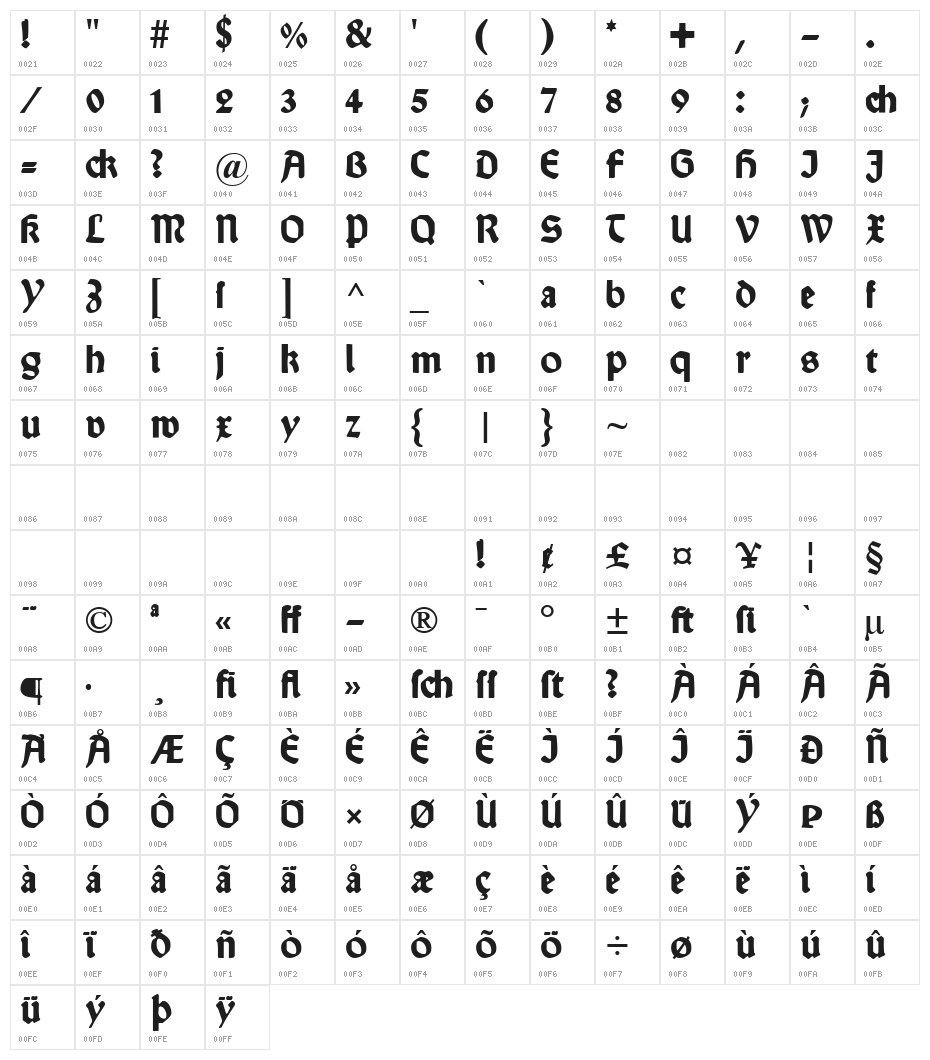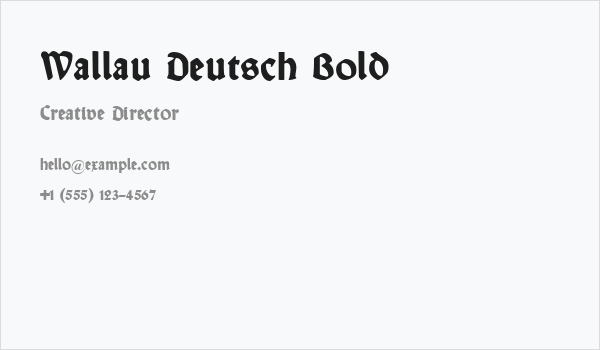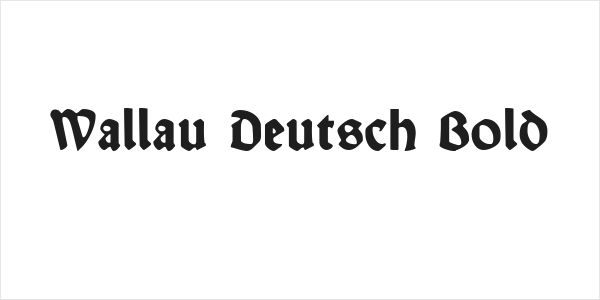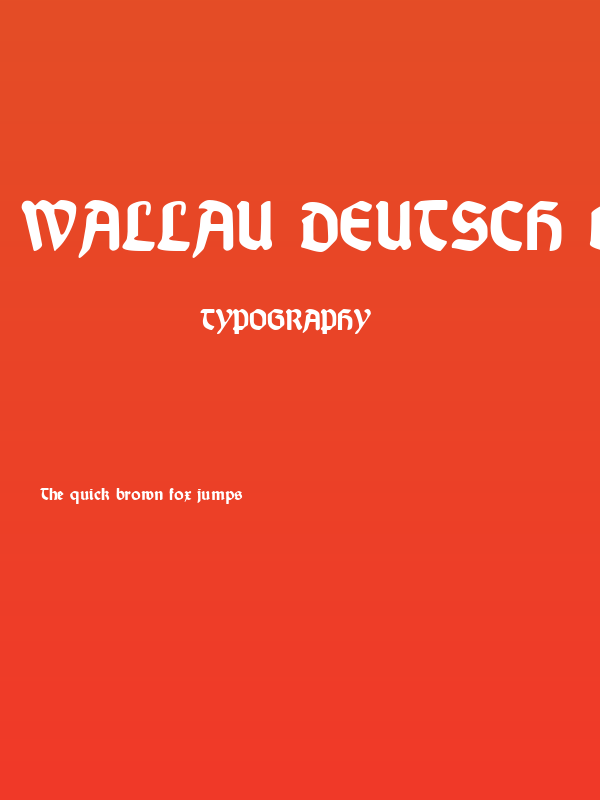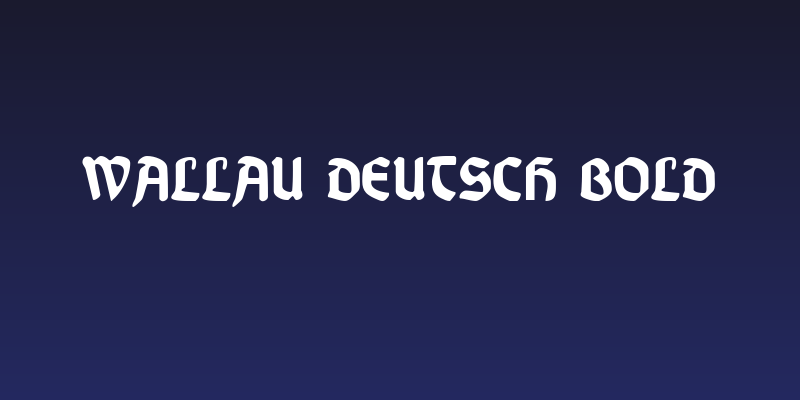
Wallau Deutsch Bold Font
Wallau Deutsch Bold Description
This font features a bold and striking blackletter style, reminiscent of traditional German typefaces. The characters are characterized by their thick, angular strokes and sharp edges, giving them a strong and authoritative presence. The uppercase letters are particularly ornate, with intricate details that enhance their visual impact. The lowercase letters maintain the same boldness, ensuring consistency across the typeface. Numbers and special characters are designed with the same attention to detail, making them suitable for a variety of uses. The overall aesthetic is both historical and dramatic, making it ideal for projects that require a touch of classic elegance.
| Use Case | Headlines, Logos, Certificates |
| Proposed Projects | Ideal for historical documents, certificates, branding for traditional products, or any project seeking a classic and authoritative look. |